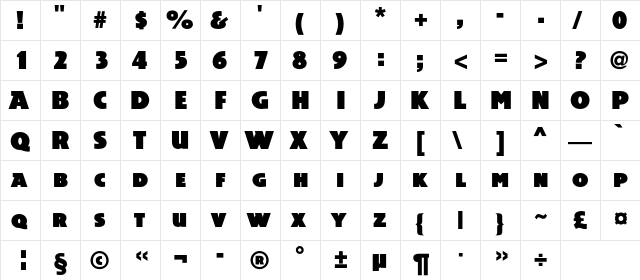
AcsiomaNext Regular Font Preview
AcsiomaNext Regular
Design Context for AcsiomaNext Typeface
AcsiomaNext is a composed and adaptable typeface that performs quietly and consistently across a wide range of design contexts.